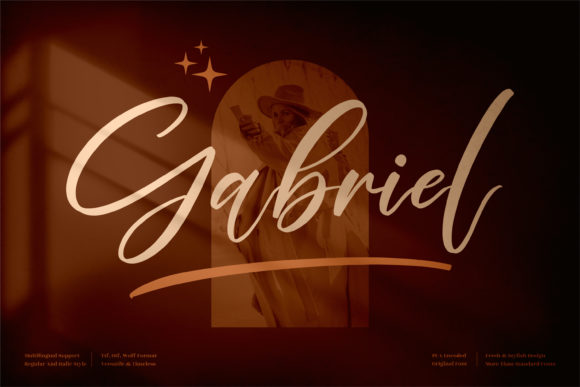
About Gabriel Font
Gabriel is a relaxed and flowing script font. Fall in love with its incredibly versatile style and use it to create gorgeous wedding invitations, beautiful stationary art, eye-catching social media posts, and much more!